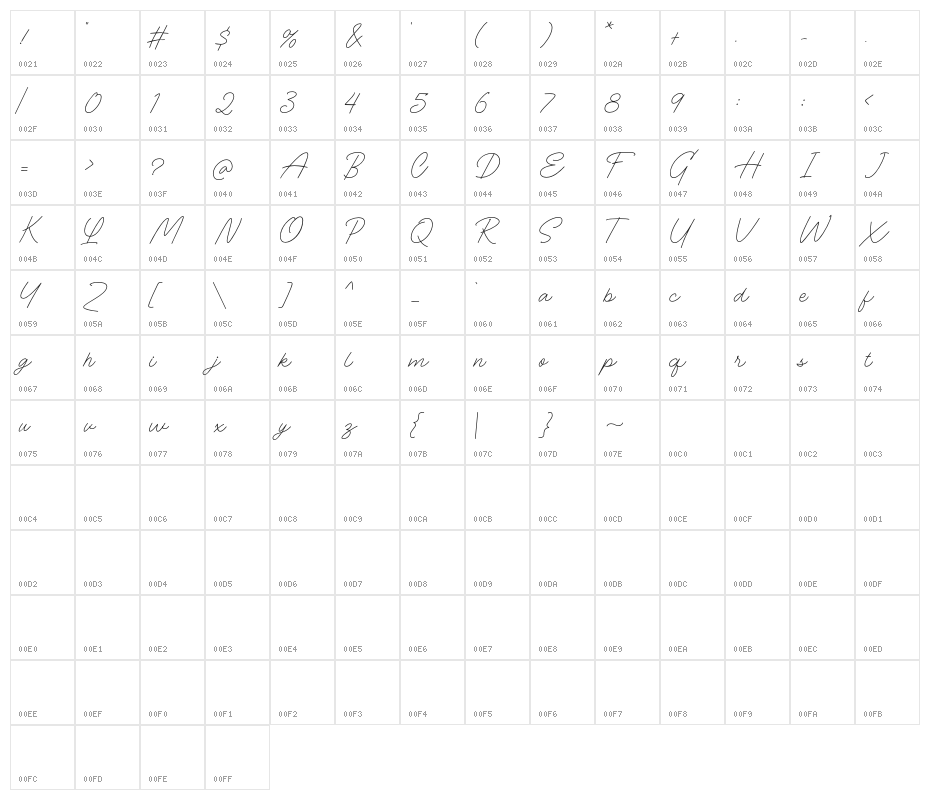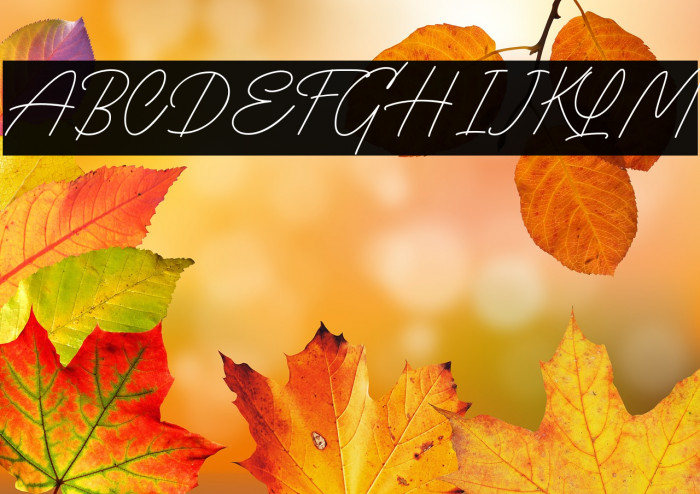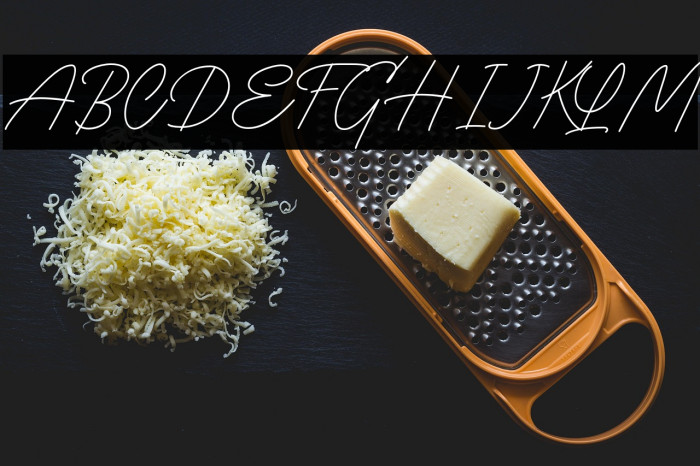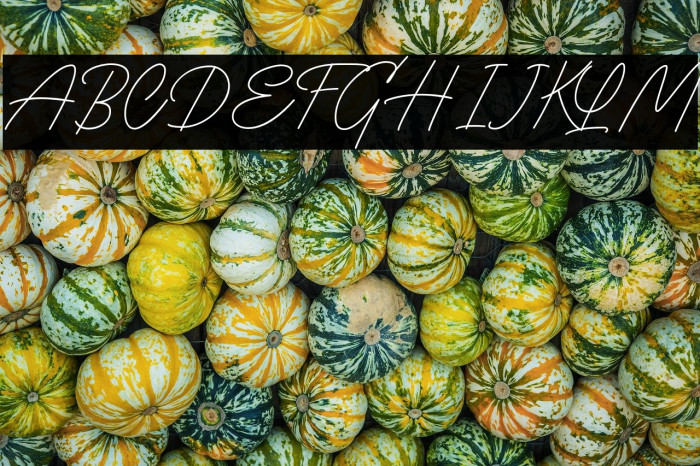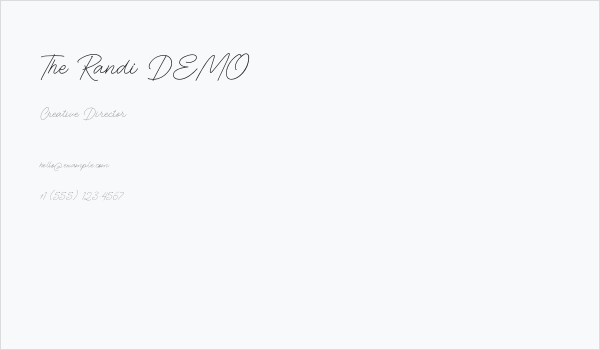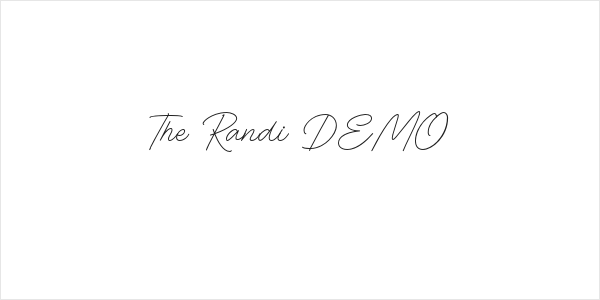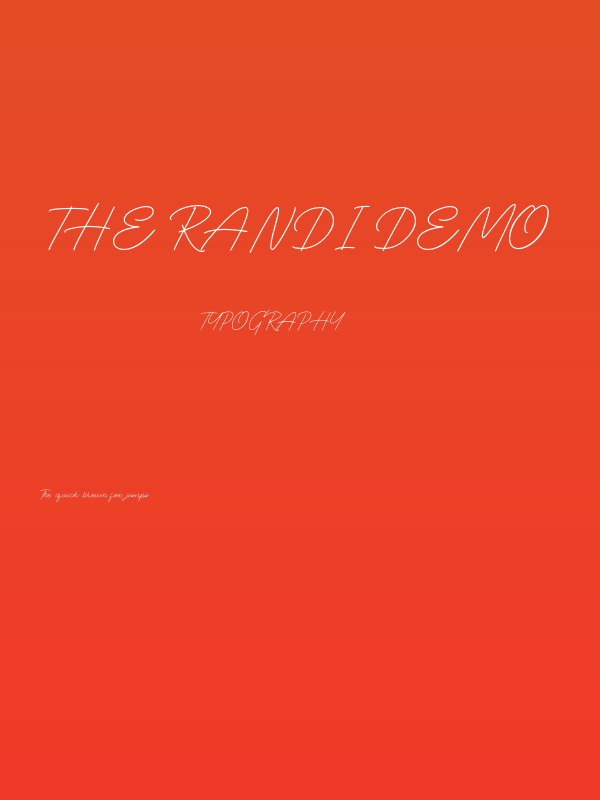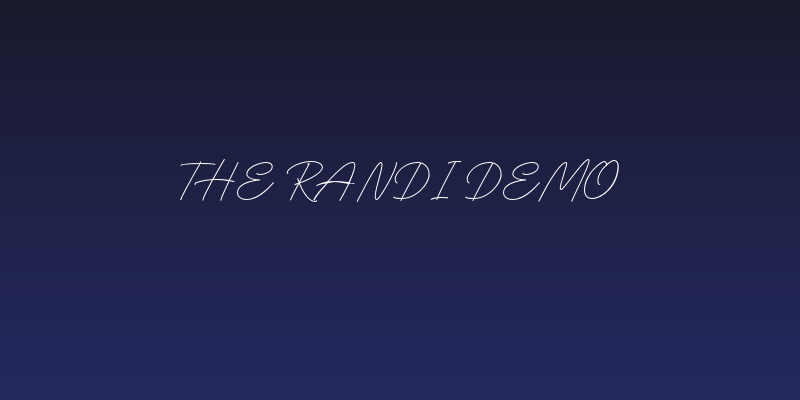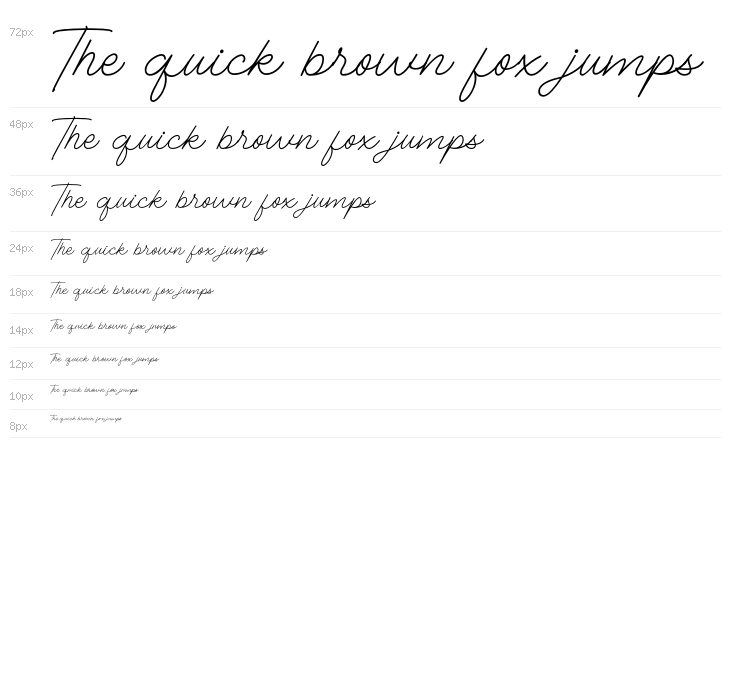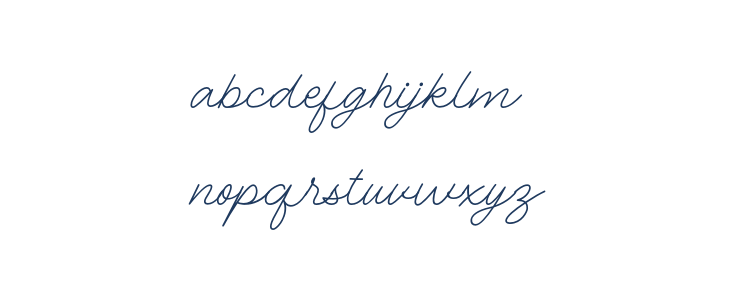
The Randi DEMO Font
The Randi DEMO Description
This font features a delicate, handwritten style with an elegant and flowing script. The characters are connected in a smooth, cursive manner, giving it a personal and artistic touch. The uppercase letters are slightly more angular, while the lowercase letters maintain a consistent, rounded form. Numbers and special characters are integrated seamlessly, maintaining the overall aesthetic. The font's thin strokes and graceful curves make it ideal for projects that require a touch of sophistication and charm.
Overall StyleElegant, Artistic
Use CaseLogos, Invitations, Personal Branding
Proposed ProjectsIdeal for wedding invitations, greeting cards, personal branding, and elegant stationery.